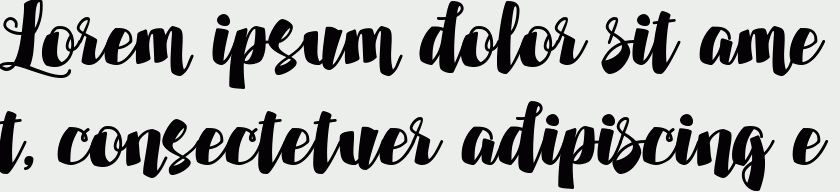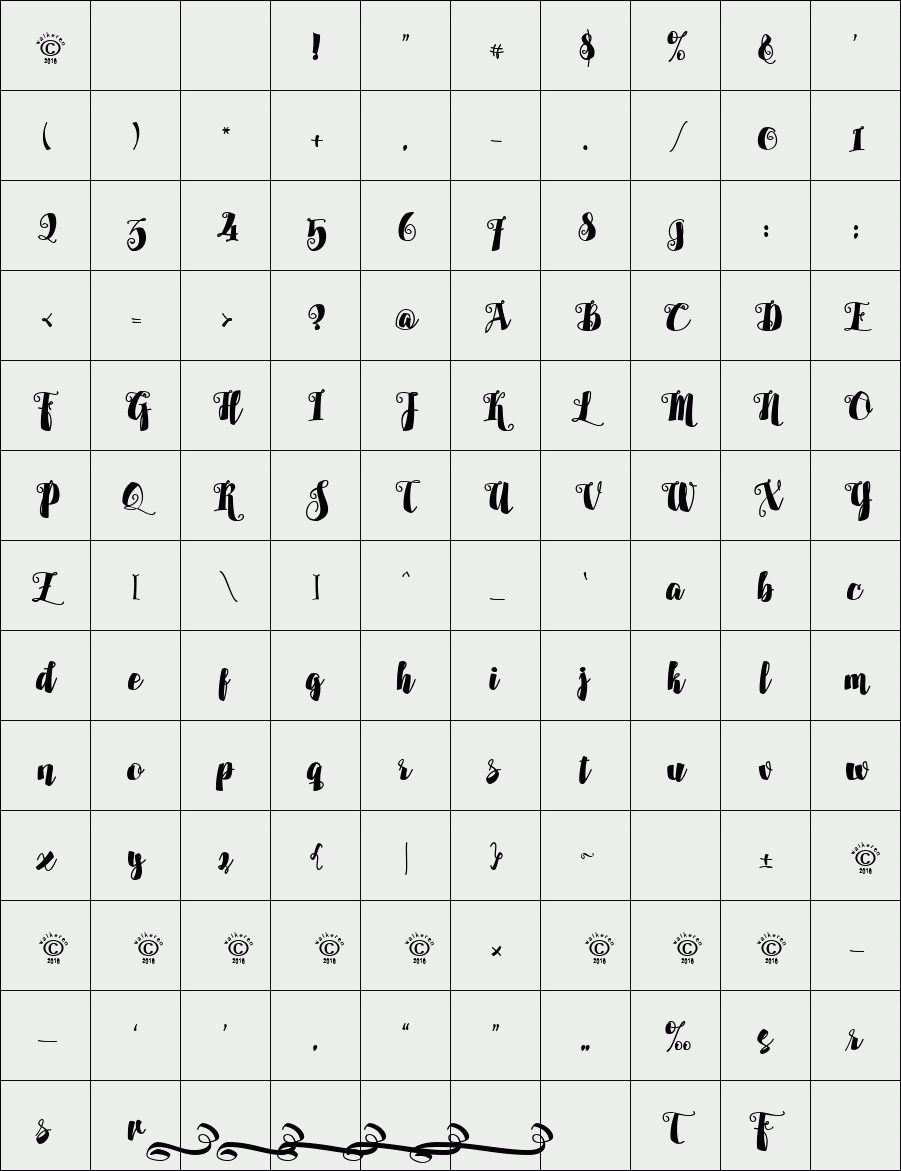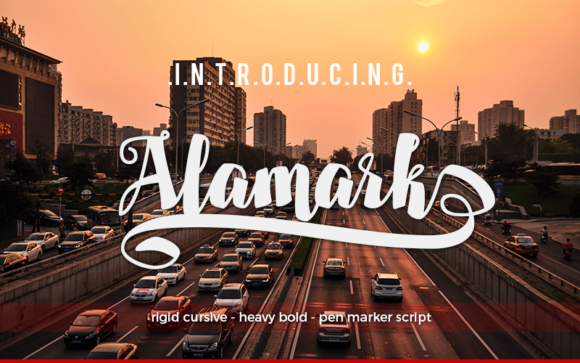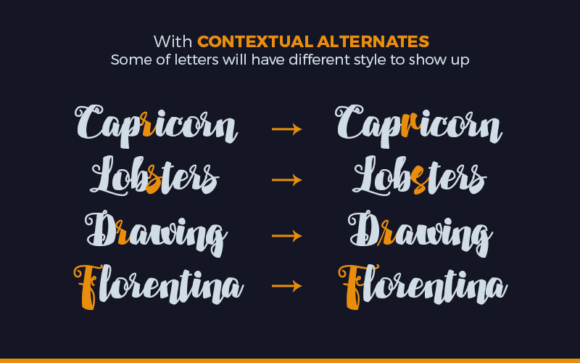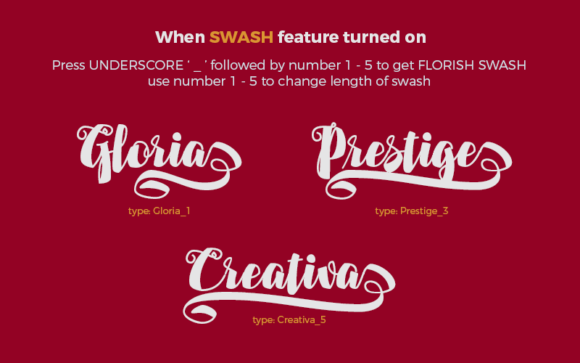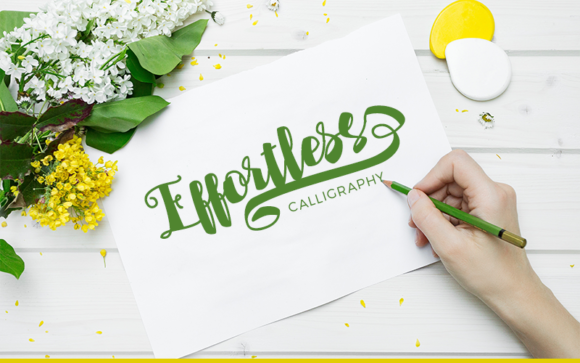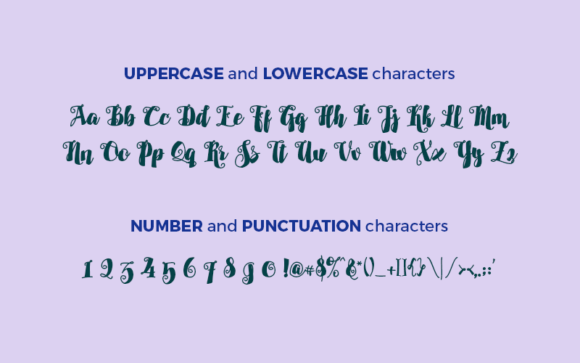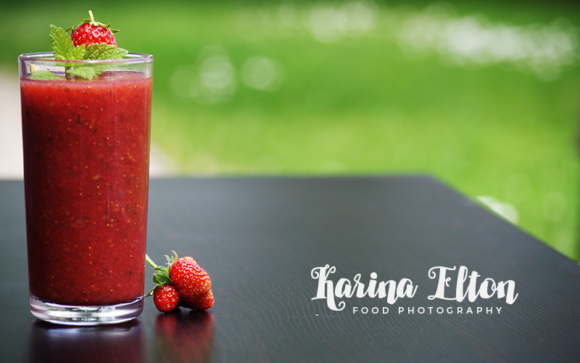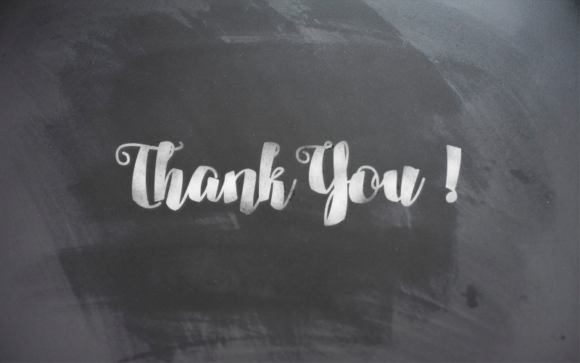
Alamark
A beautiful handwriting. Introducing Alamark, a cursive font with heavy bold looking. Its look made by pen marker or chalk makes it the good for display like titling, logotype, branding, printed quotes, wedding invitation cards, social media headers, product packaging, home decor and a lot more.
A handful of swashes and more alternative character are also included in the Private Use Area, make you can access them easily even your application not support OpenType.